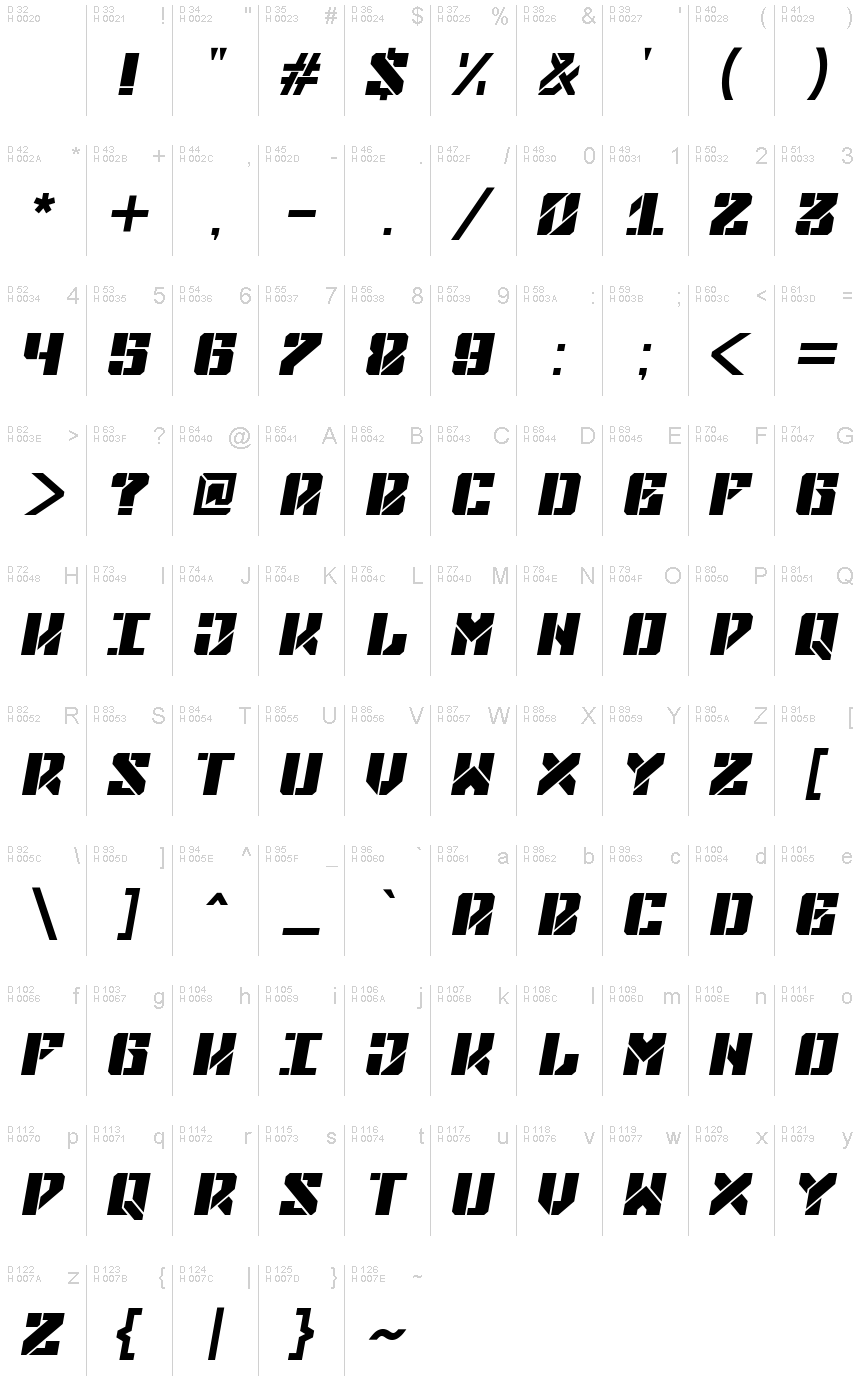
Mechaside Italic
The Mechaside Italic font from the Mechaside family, designed by Kris Kurn, epitomizes futuristic flair with its bold and striking design. As a display typeface, it features geometric shapes combined with distinctive stenciled cuts, making it ideal for sci-fi themes, technology-driven projects, video games, and mecha or robot concepts. This font's dynamic and energetic style captures attention and adds a cutting-edge aesthetic to any design.
If this font seems to be useful, I may update it to include lowercase.